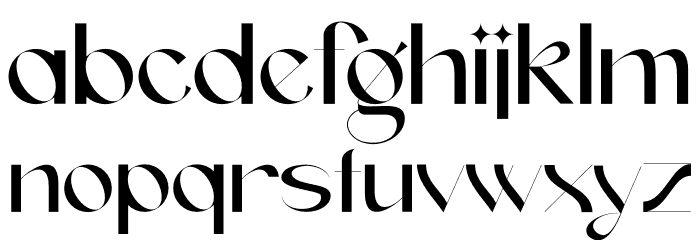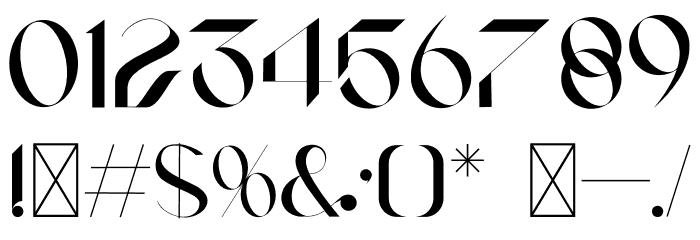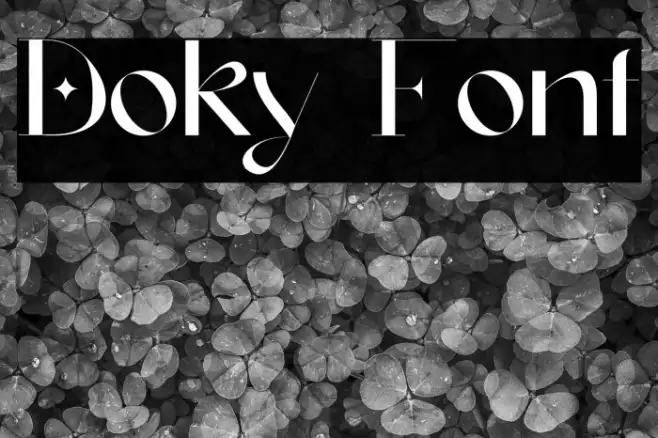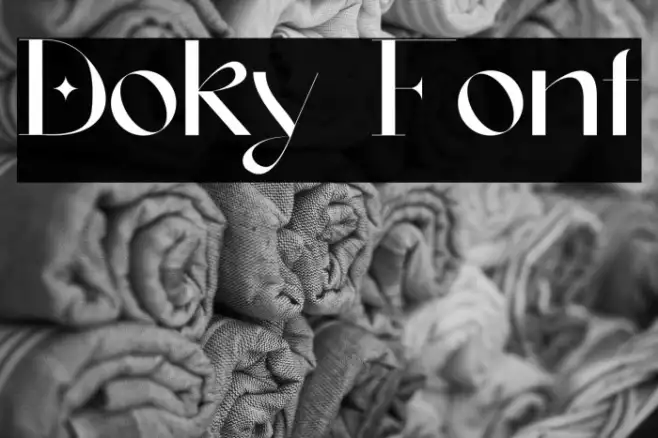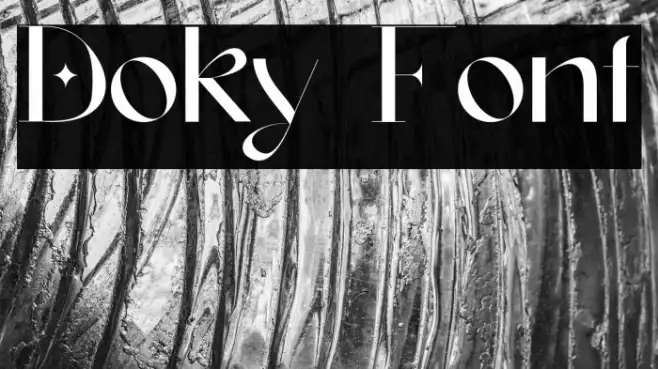
Doky Font
This font features a unique and modern design with a high contrast between thick and thin strokes, creating a striking visual impact. The uppercase letters are characterized by their elegant curves and sharp angles, while the lowercase letters maintain a consistent style with a touch of playfulness. The numerals are bold and distinctive, matching the overall aesthetic. Special characters are creatively designed, adding to the font's versatility. The font's geometric elements and stylish flair make it suitable for a variety of creative projects.
A modern, high-contrast font with geometric elements and stylish flair.
- Proposed Projects: Ideal for branding, editorial design, fashion magazines, and luxury product packaging.
- Overall Style: Modern, Decorative
- Use Case: Headlines, Logos, Branding